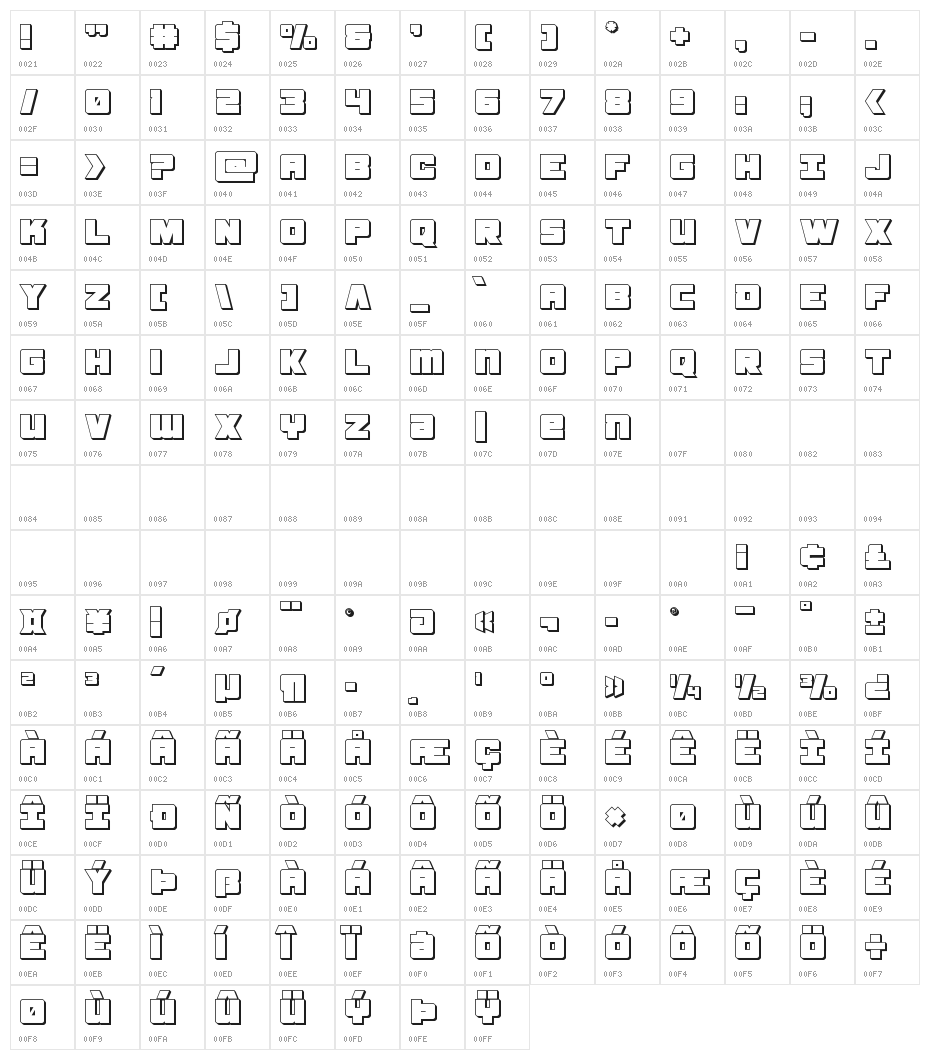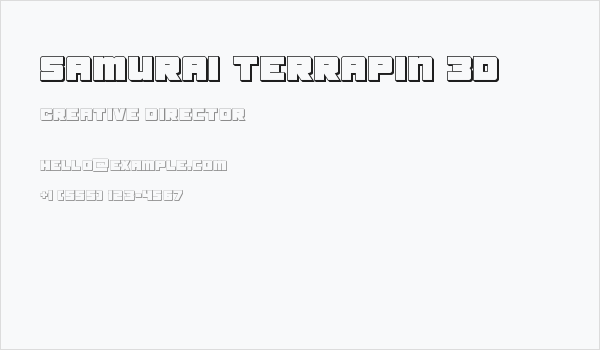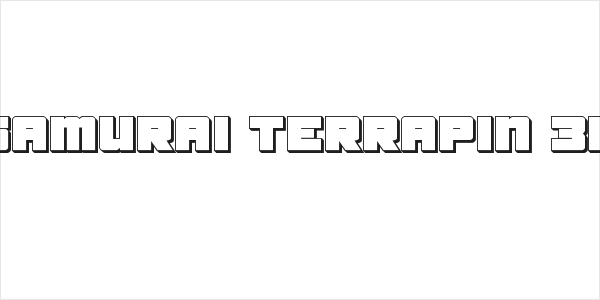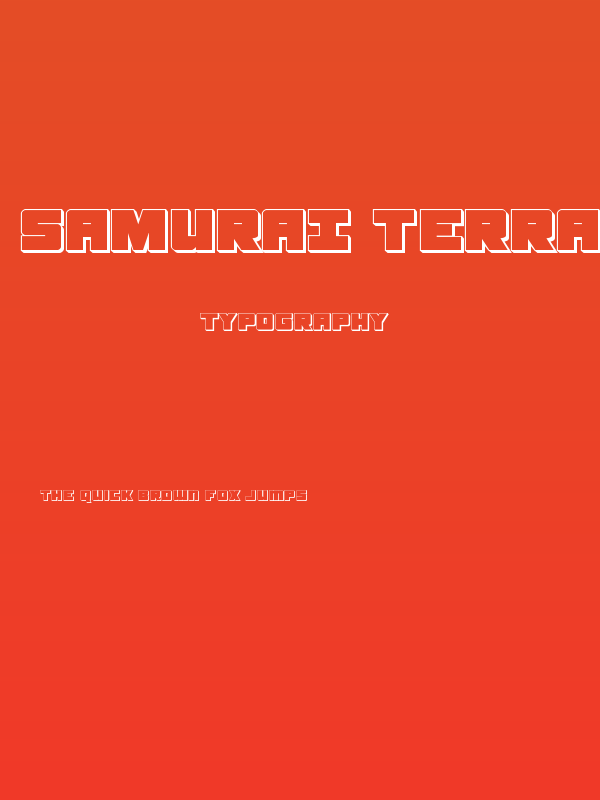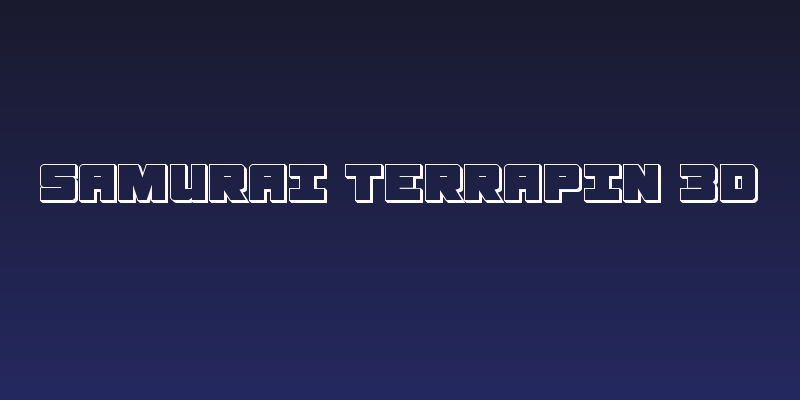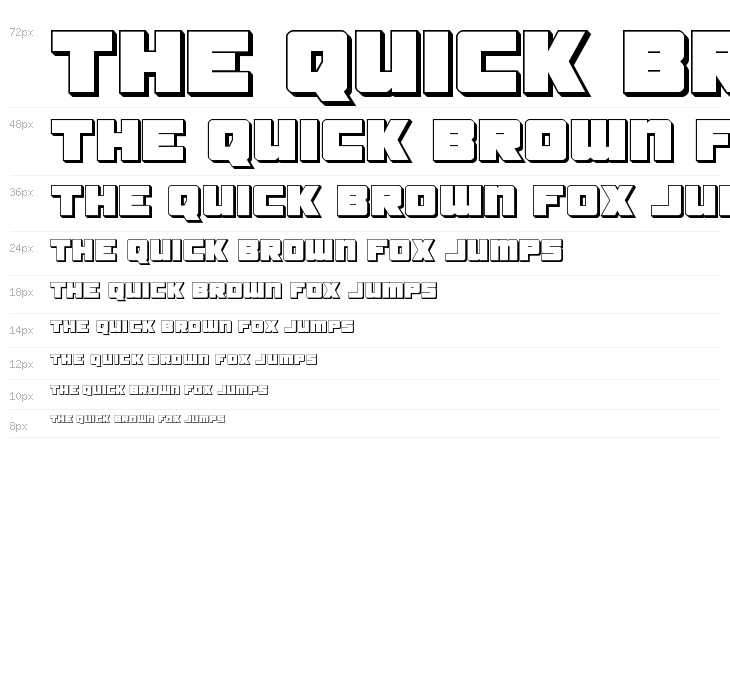
Samurai Terrapin 3D Font
Samurai Terrapin 3D Description
This font features a bold, three-dimensional block style with a strong presence. Each character is outlined, giving it a distinct shadow effect that enhances its 3D appearance. The letters are uniformly structured with sharp angles and clean lines, creating a futuristic and robust look. The font maintains a consistent width across all characters, contributing to its cohesive and balanced design. Its geometric nature makes it highly legible, even at smaller sizes, while the 3D effect adds a layer of depth and interest. The numbers and special characters are designed with the same boldness and clarity, ensuring uniformity throughout.